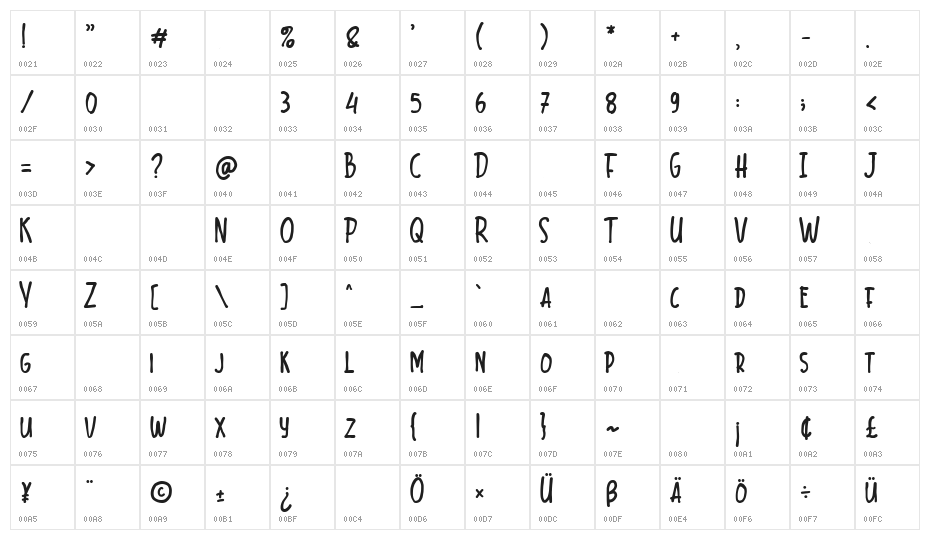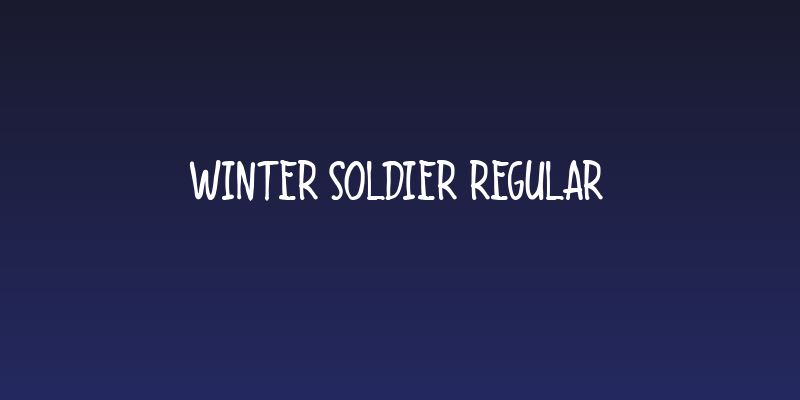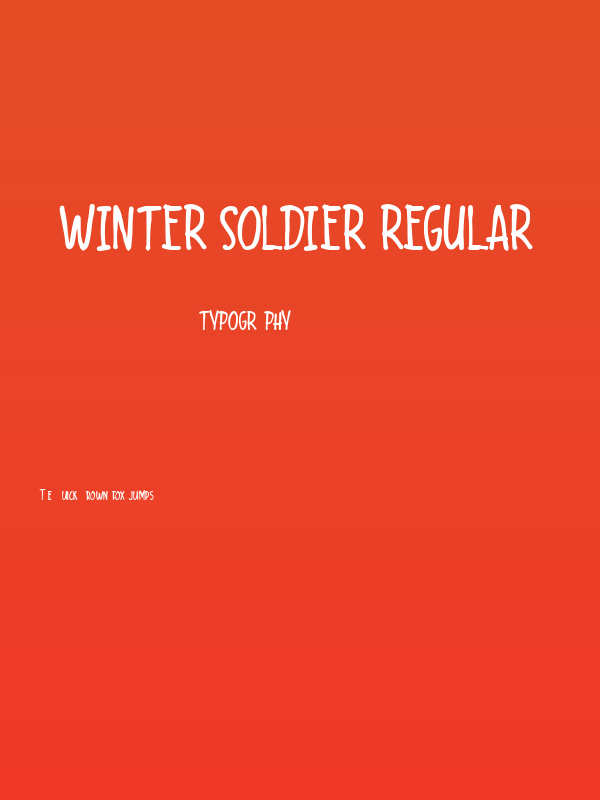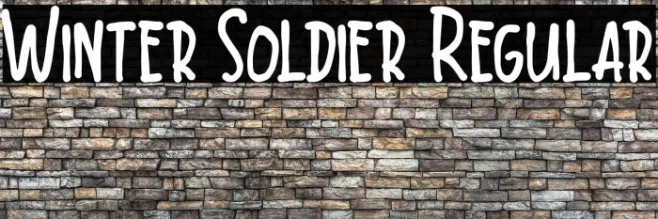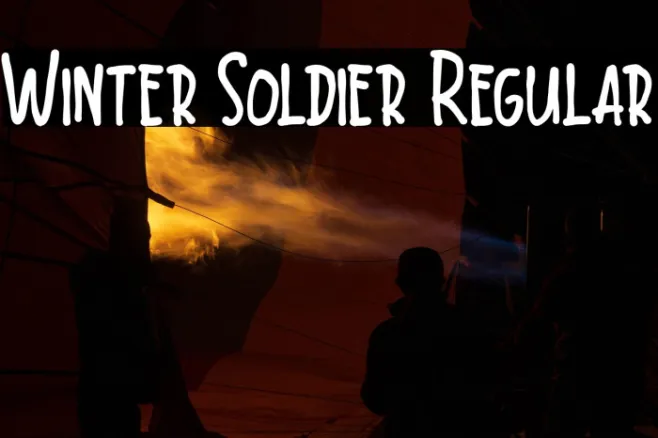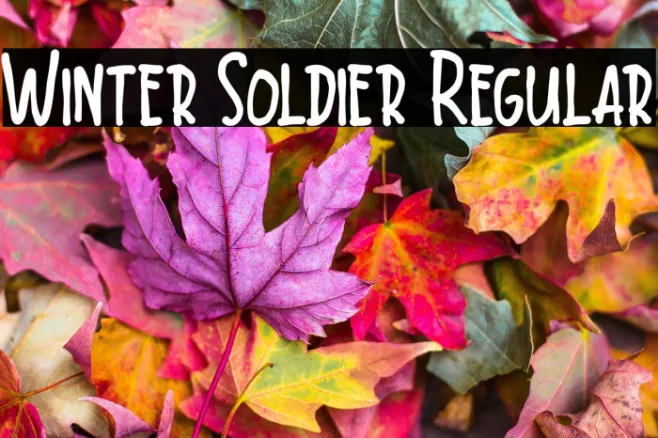
Winter Soldier Regular Font
Winter Soldier Regular Description
This font features a bold, handwritten style with a playful and casual appearance. The letters are slightly irregular, giving it a dynamic and energetic feel. The uppercase and lowercase letters maintain a consistent flow, with rounded edges and a slight slant that adds to its informal charm. The numerals and special characters are crafted to match the overall aesthetic, making it versatile for various creative applications. Its unique style is both approachable and distinctive, making it suitable for projects that require a personal touch.
| Proposed Projects | Ideal for greeting cards, children's books, playful branding, and social media graphics. |